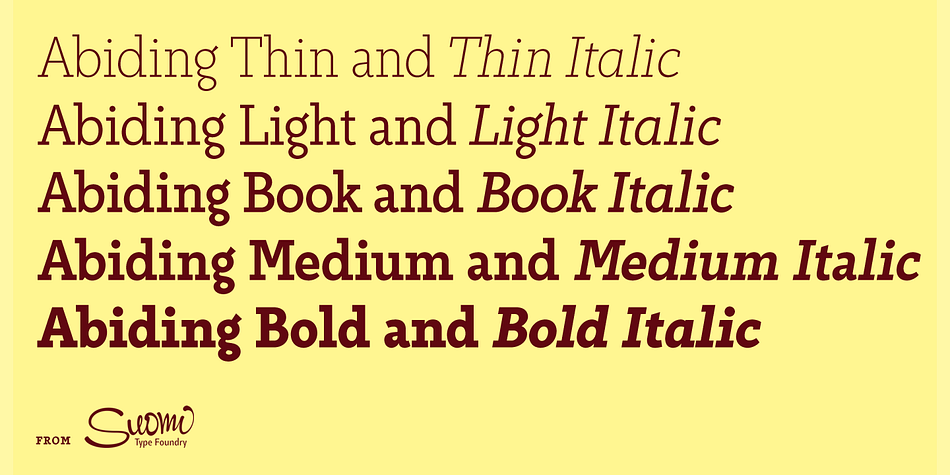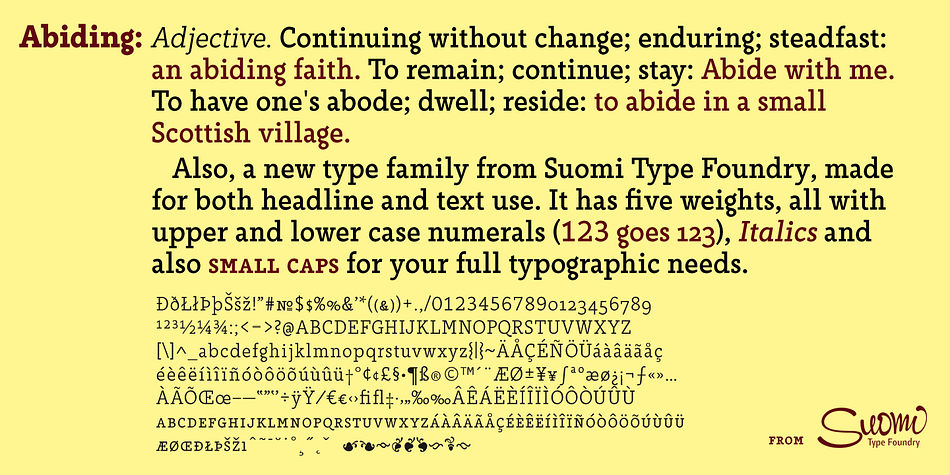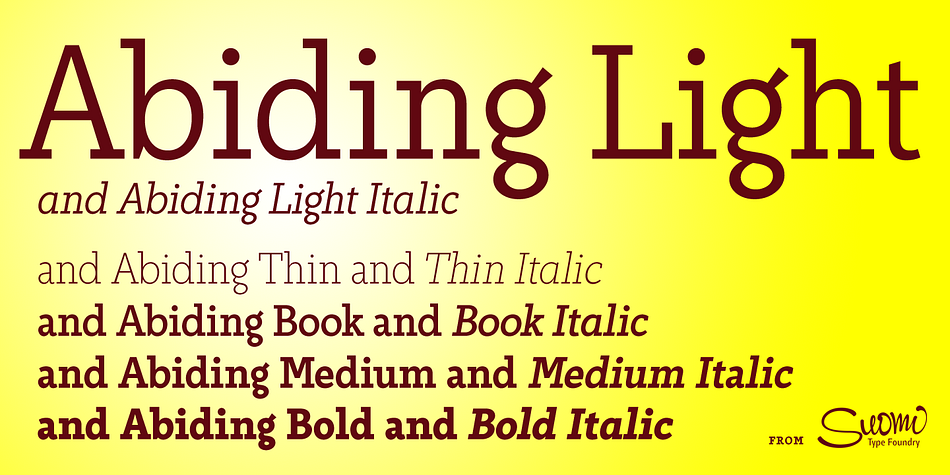
Abiding is a slab serif font family. This typeface has ten styles and was published by Suomi Type Foundry.
A Slab Serif font family of five weight for headline and text use, with old style numerals and small caps.